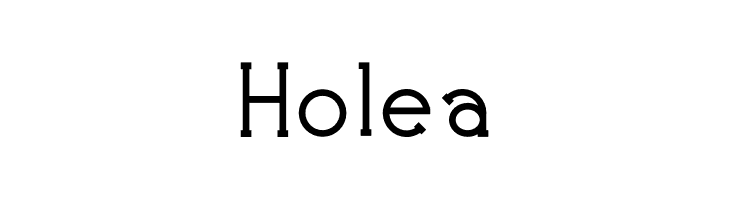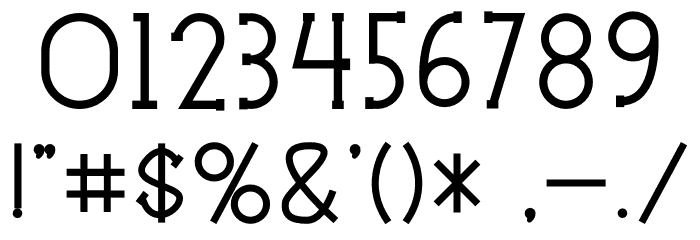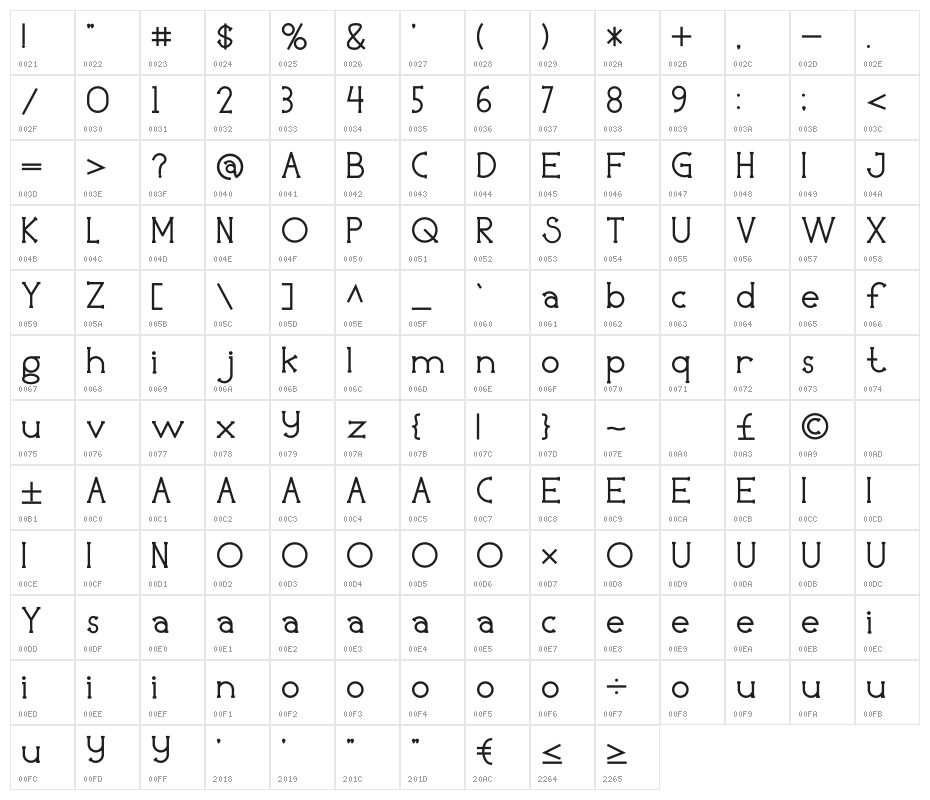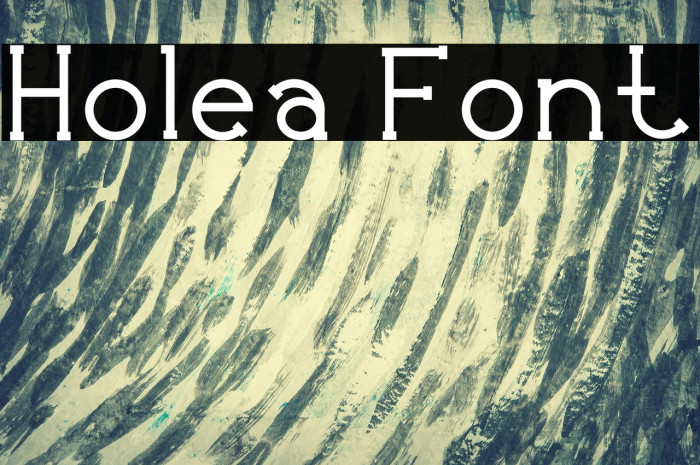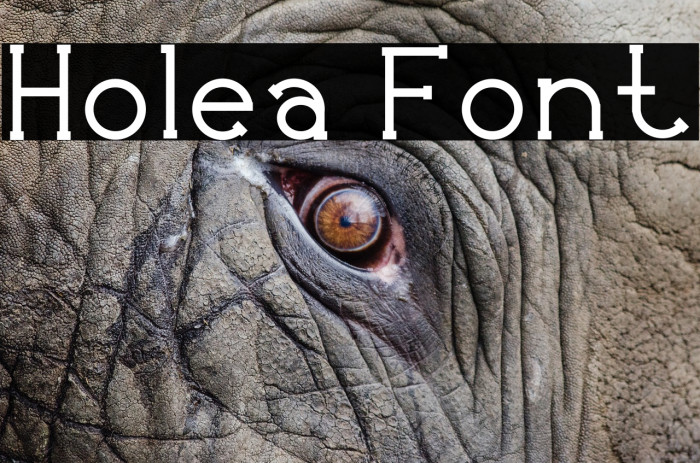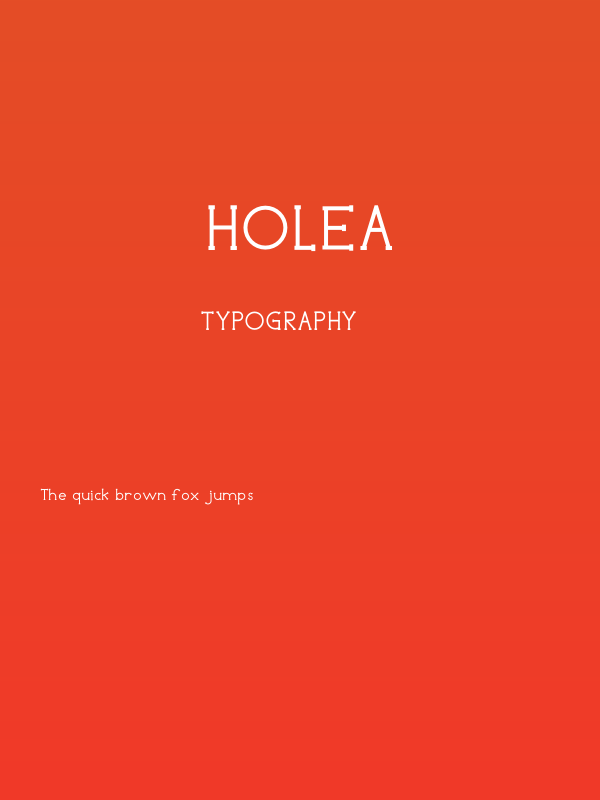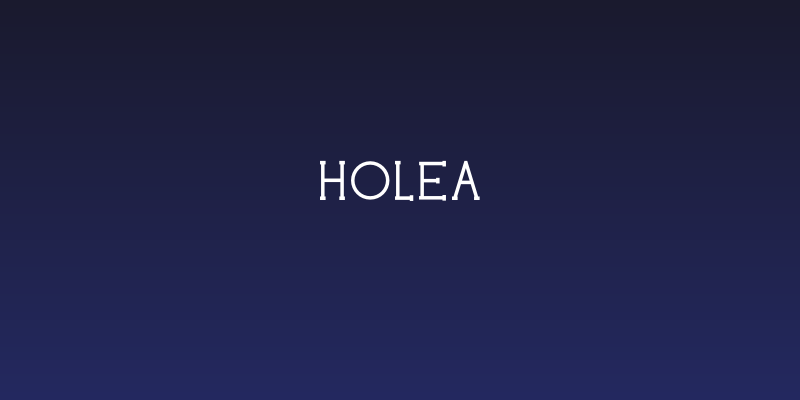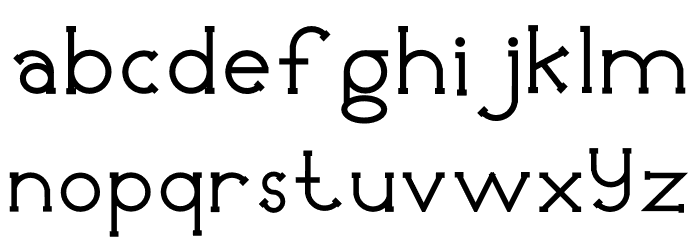
Holea Font
Holea Description
This font exhibits a clean and modern aesthetic with a geometric influence. The uppercase letters are bold and structured, featuring sharp angles and a consistent stroke width that conveys a sense of stability and professionalism. The lowercase letters maintain a similar geometric style, with rounded edges that soften the overall appearance, making it approachable and versatile. The numerals are clear and legible, designed to match the style of the alphabet with a uniform stroke width. Special characters are well-integrated, maintaining the font's cohesive look. This font is suitable for a variety of applications, offering both clarity and style.
| Proposed Projects | Ideal for branding, advertising, and editorial design projects that require a modern and professional look. |